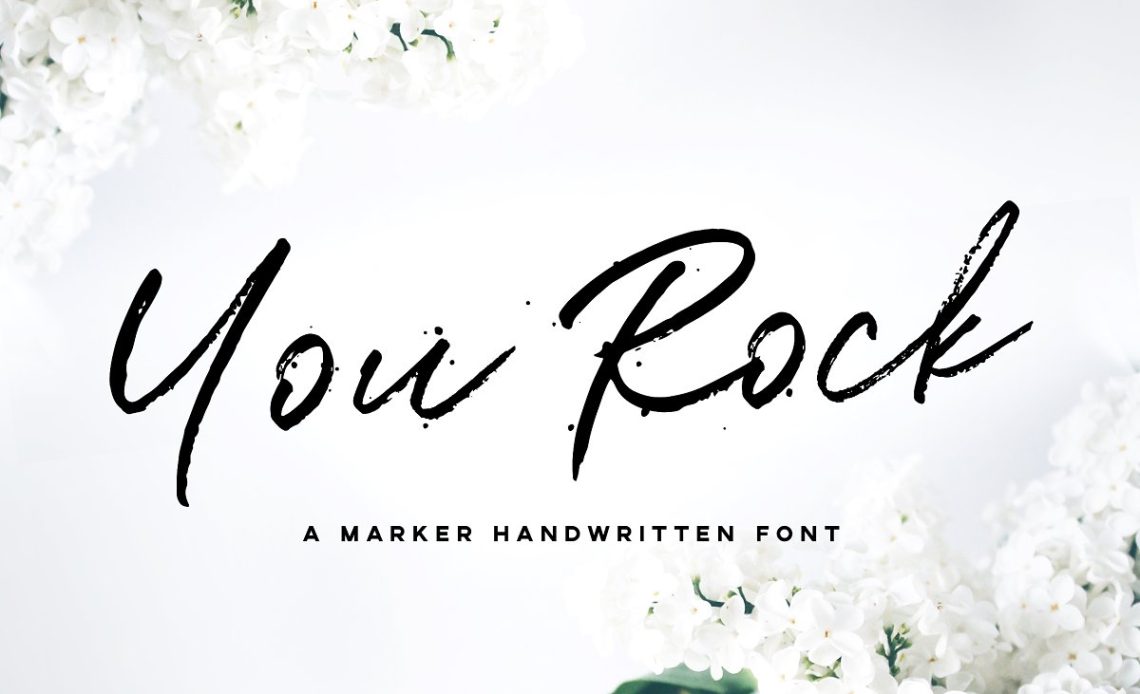
Introducing the You Rock Handwritten Font, a trendy and captivating addition to your font collection. Created by the talented Vlad Cristea, this font brings a touch of natural elegance to your designs, making it perfect for logos, signatures, packaging design, blog headlines, and all your print projects.
With its wide and right-slanted touch, You Rock exudes a characteristic hand look style that will instantly elevate your work. Its pleasant and organic feel will captivate your audience and leave a lasting impression.
To cater to a wider range of design needs, You Rock also supports diacritics for Western and Central European Languages, ensuring that your text looks flawless and professional in any language.